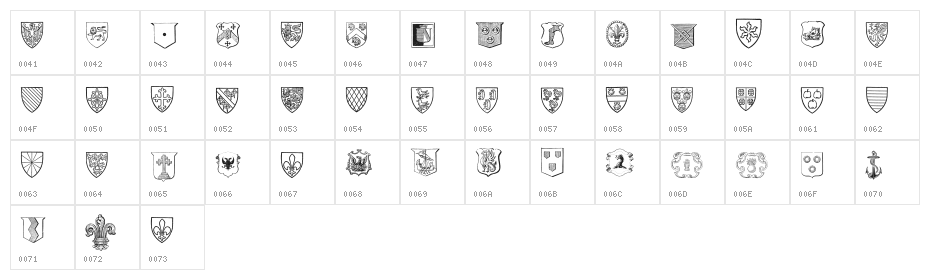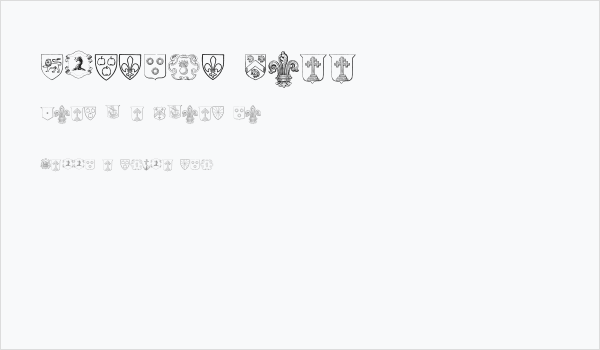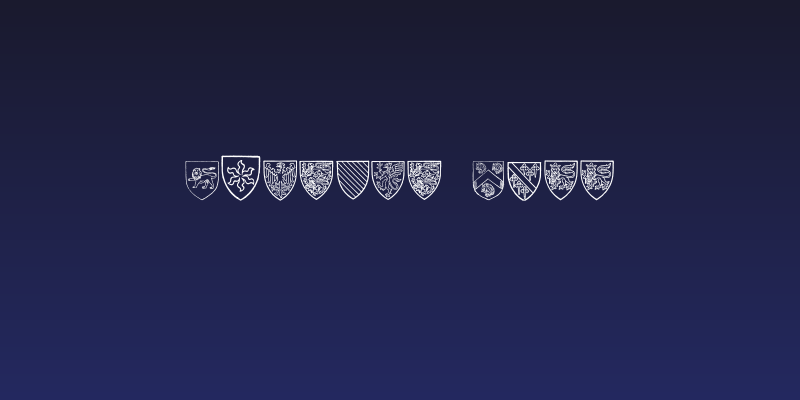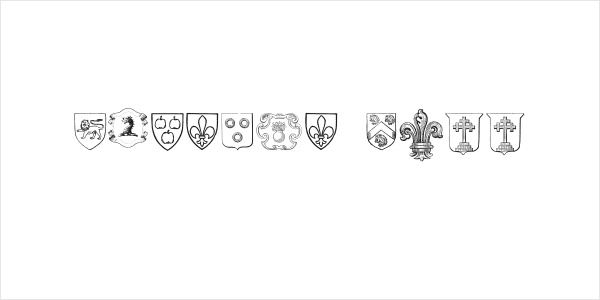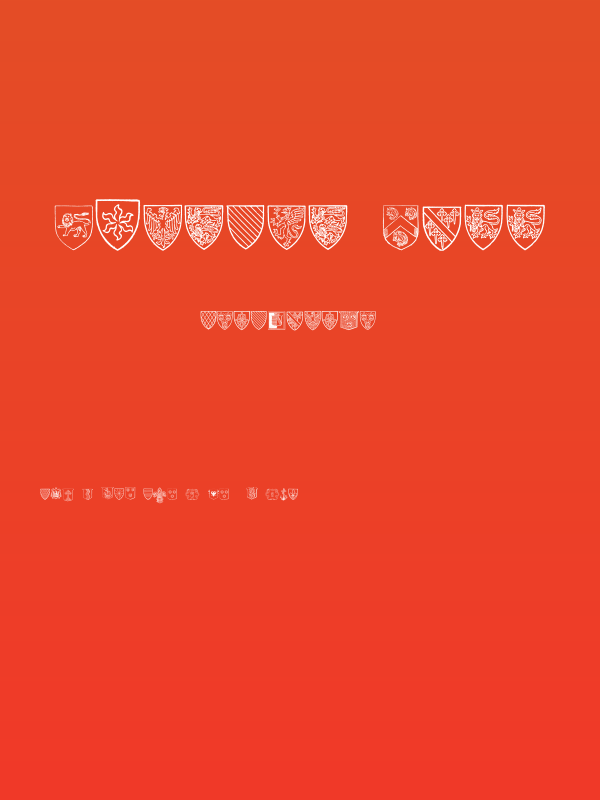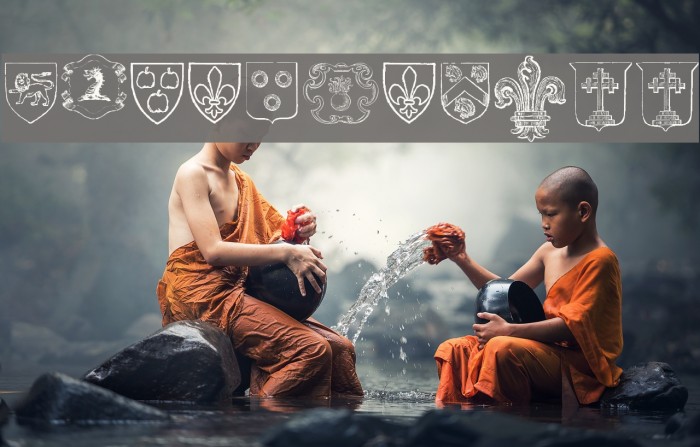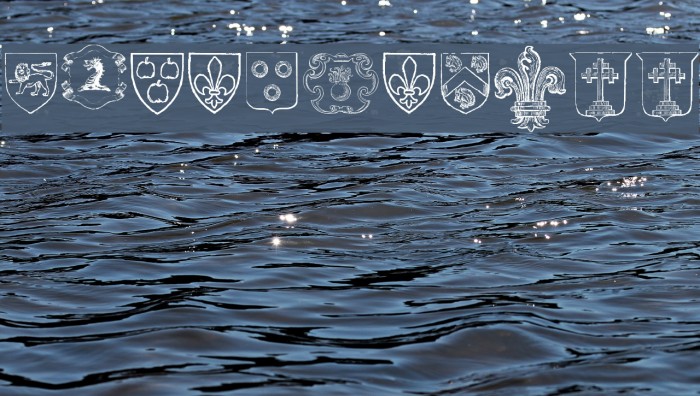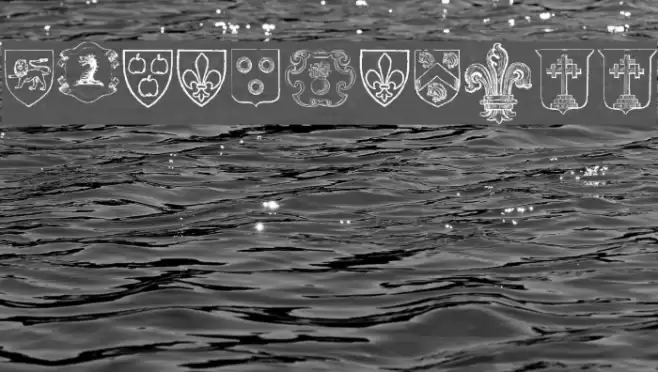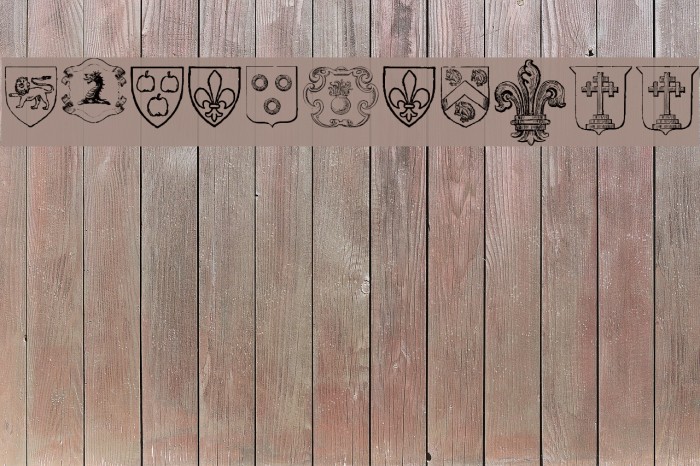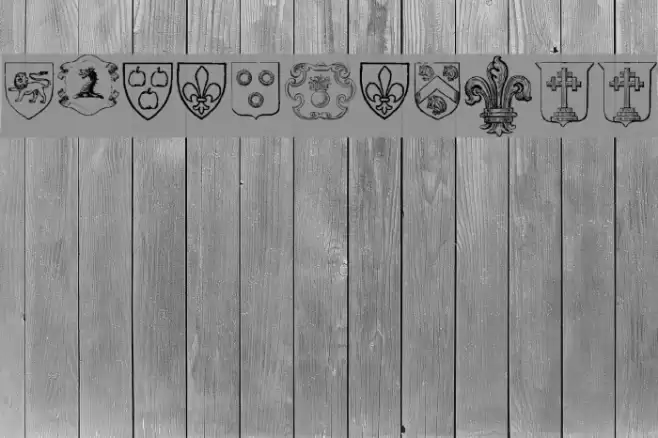
Blasons Free Font
Blasons Free Description
A collection of highly detailed, black-and-white heraldic shield illustrations, each featuring unique medieval symbols, patterns, and emblems. The designs are intricate, with a hand-drawn, engraved appearance, and no consistent letterforms or numerals present.
| Overall Style | Vintage, Decorative, Heraldic |
| Use Case | Decorative elements, Themed graphics, Emblems, Not suitable for text. |
| Proposed Projects | Historical documents, fantasy game assets, coat of arms design, invitations, decorative borders. |